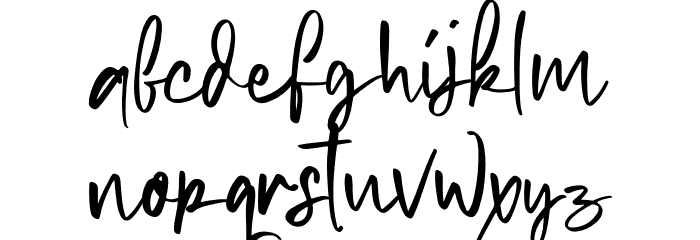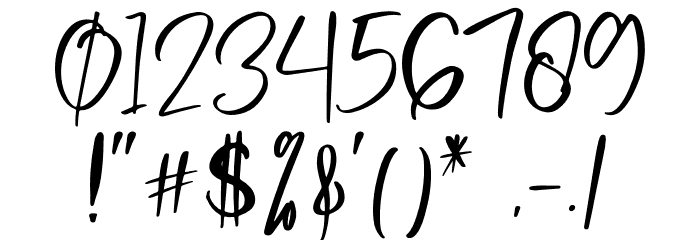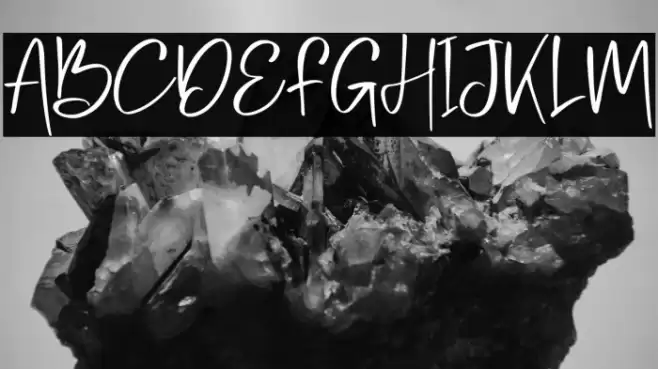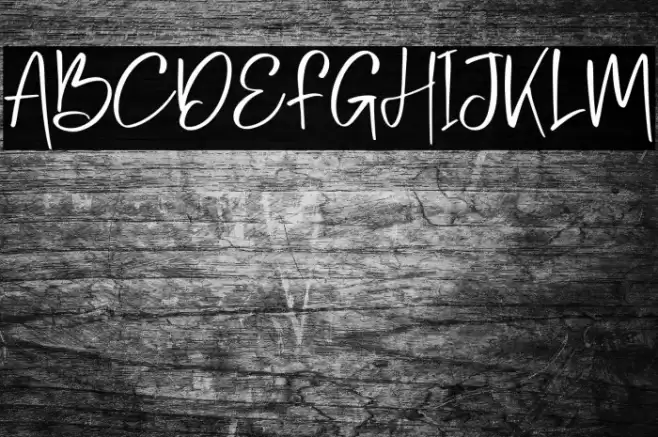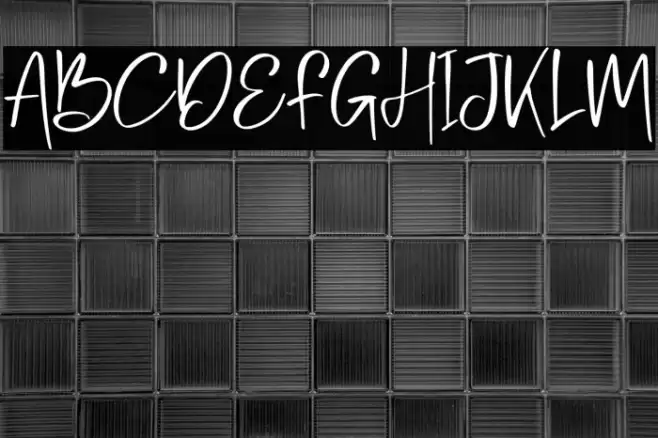
Petter story Font
This font exudes a lively and expressive handwritten style, characterized by its fluid and dynamic strokes. The uppercase letters are bold and slightly elongated, giving a sense of movement and energy. The lowercase letters maintain a consistent flow, with some letters featuring playful loops and curves. The numbers are equally expressive, with a consistent stroke width that complements the overall design. Special characters are creatively integrated, maintaining the font's lively aesthetic. This font is perfect for projects that require a personal and artistic touch, such as invitations, greeting cards, or creative branding.
A lively and expressive handwritten font with dynamic strokes and playful curves.
- Proposed Projects: Ideal for invitations, greeting cards, artistic branding, and creative projects.
- Use Case: Logos, Headlines, Artistic projects